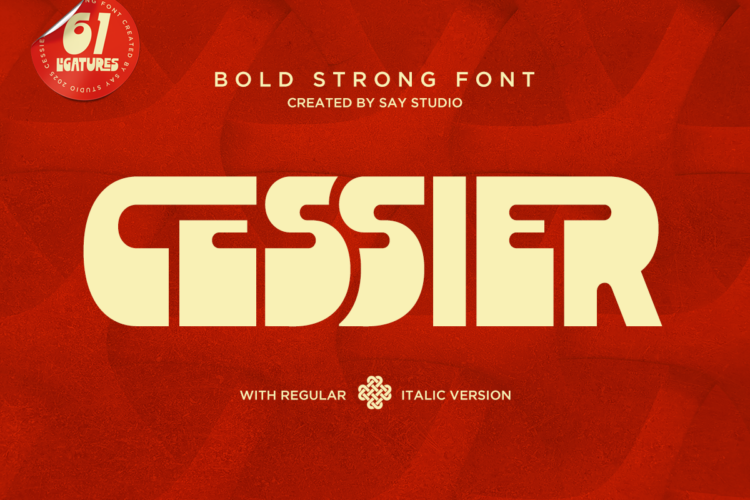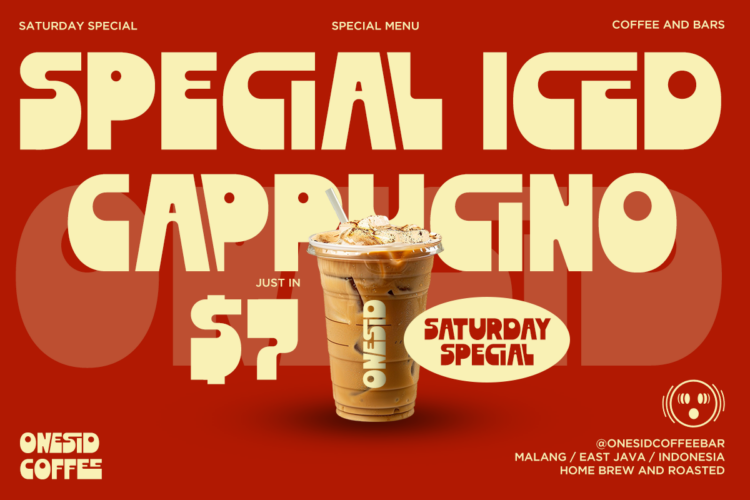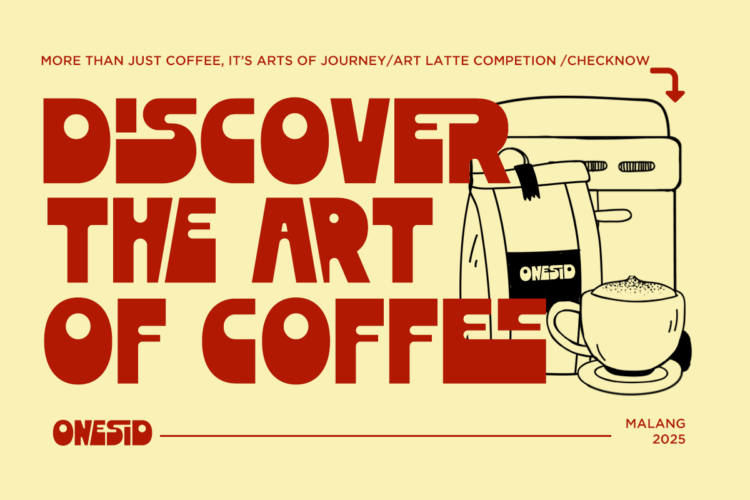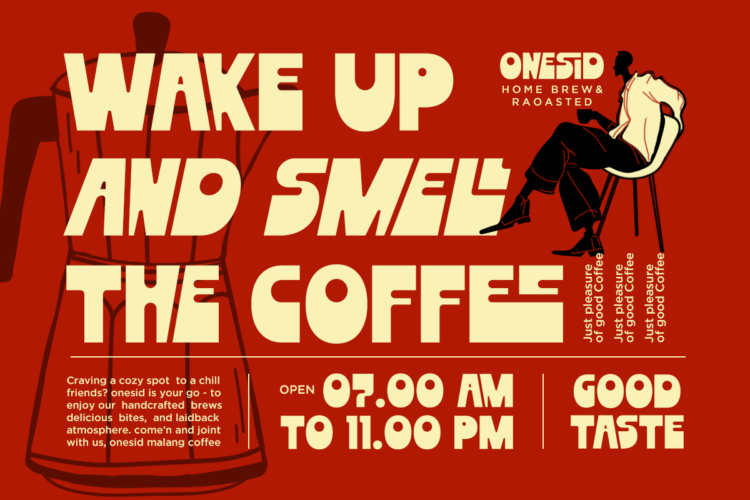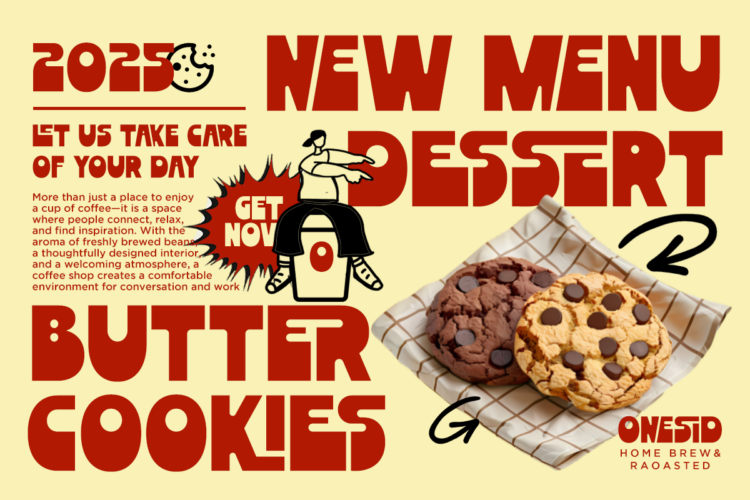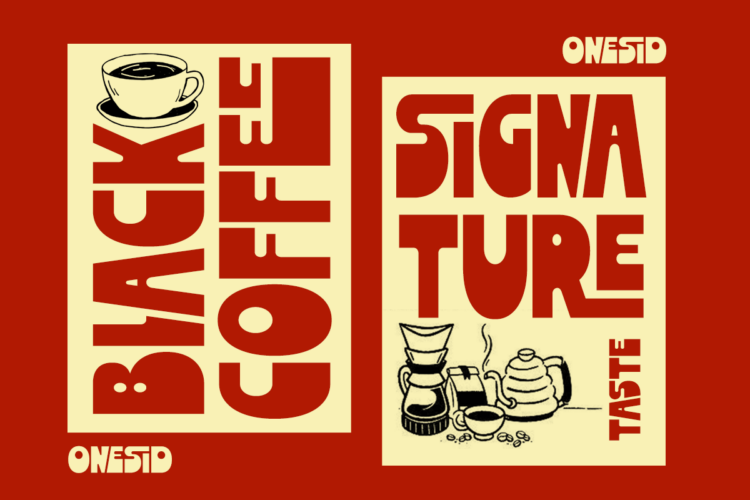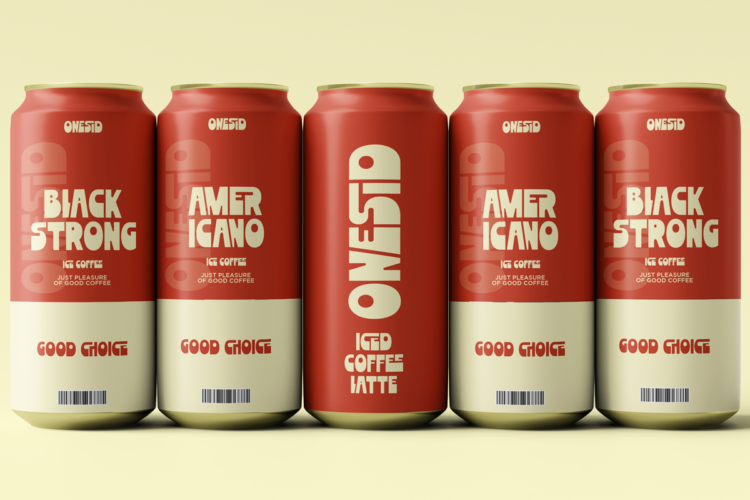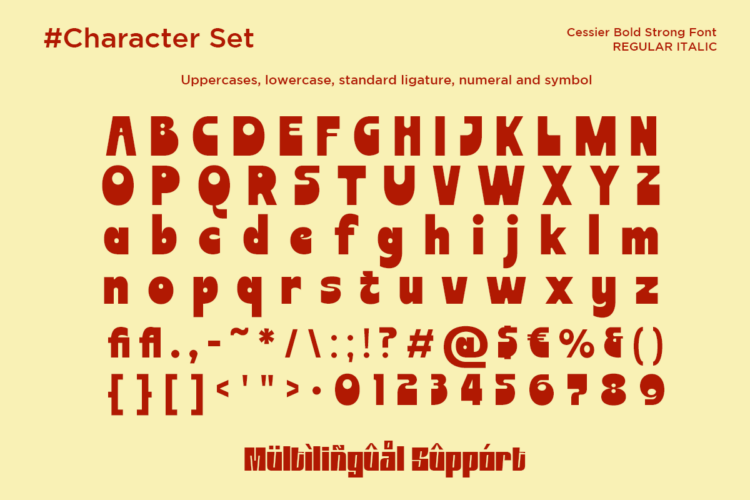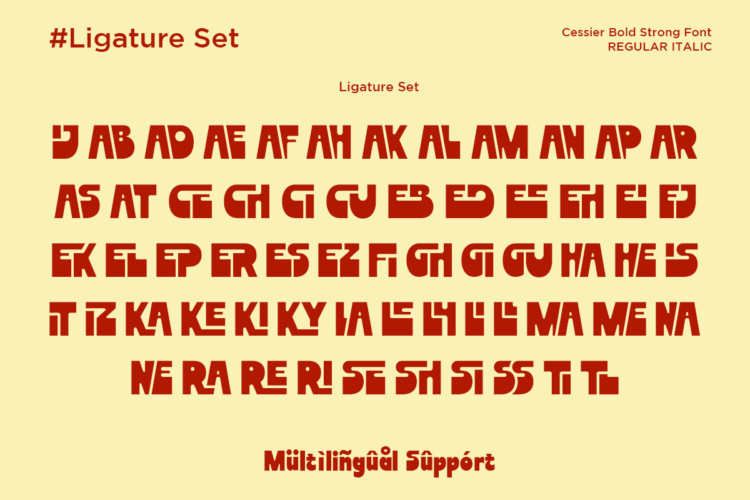
Cessier is a bold and strong display sans serif font designed to make a powerful visual impact. With its thick strokes, rounded geometric shapes, and confident character, this typeface is perfect for posters, logos, headlines, branding, packaging, and advertising designs. Equipped with regular and italic styles plus rich ligatures, Cessier delivers versatility while maintaining a modern, energetic, and eye-catching presence for both digital and print use.
– Uppercase, Lowercase
– Ligatures
– Symbol, Number